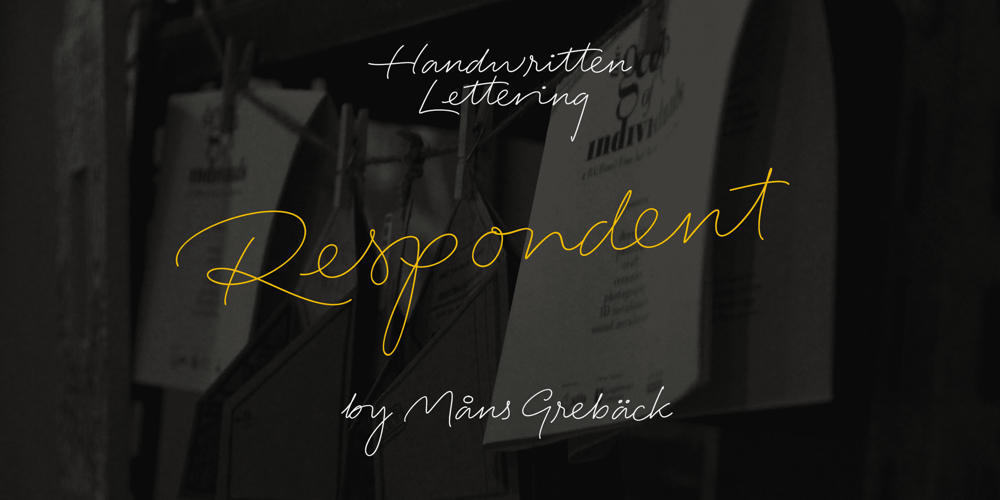
Respondent
Respondent font
Respondent Font Family was designed by Måns Grebäck and published by Mans Greback. Respondent contains 5 styles and family package options. Respondent is a flowing and handwritten font.Drawn, created and published by Mans Greback in 2021, this script family has a genuine and empathic personality, while being wild and vivid.Respondent can be used in a product or company logo, or in any digital design where you want the appearance of true, released handwriting.Originally inspired by the lettering on the cover of GTA Vice City, over the design process is has evolved to a very diverse typeface that can be used in a wide variety of contexts, much more than a Grand Theft Auto font. The Respondent Family is provided in five weights: Thin, Light, Medium, Bold and BlackThe different styles supplies a flexibility in both character and size. The font is built with advanced OpenType functionality and has a guaranteed top-notch quality, containing stylistic and contextual alternates, ligatures and more features; all to give you full control and customizability. It has extensive lingual support, covering all Latin-based languages, from North Europe to South Africa, from America to South-East Asia. It contains all characters and symbols you’ll ever need, including all punctuation and numbers.